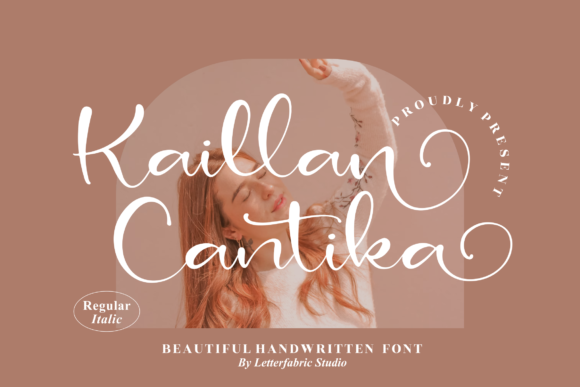
Feast your eyes on the exquisite Kaillan Cantika Font, a graceful script family crafted to captivate your audience with its enchanting allure. This meticulously designed font exudes elegance and sophistication, making it the perfect choice for adding a touch of luxury and personality to your creative endeavors.
Immerse yourself in the world of Kaillan Cantika, where letters dance with fluidity and charm. Its delicate strokes and sweeping curves evoke a sense of timeless beauty, reminiscent of handwritten love letters and cherished memories. Whether you're a seasoned designer or just starting your creative journey, Kaillan Cantika will elevate your projects to new heights.
Unleash your creativity and let your imagination soar with Kaillan Cantika. Its versatility knows no bounds, lending itself effortlessly to a myriad of design applications. From stunning logos and eye-catching branding to heartfelt invitations and whimsical social media posts, Kaillan Cantika transforms ordinary words into captivating expressions of art.
Step into the spotlight and let Kaillan Cantika be your guiding star, leading you towards design brilliance. Its PUA encoding grants you access to a treasure trove of glyphs and ligatures, empowering you to add intricate details and flourishes that will leave your audience spellbound.
With Kaillan Cantika as your creative companion, you hold the key to unlocking a world of endless possibilities. Its magical touch will transform your designs into captivating masterpieces that resonate with your audience on a profound level. Embrace the beauty of Kaillan Cantika today and embark on a creative journey that will leave an unforgettable mark.